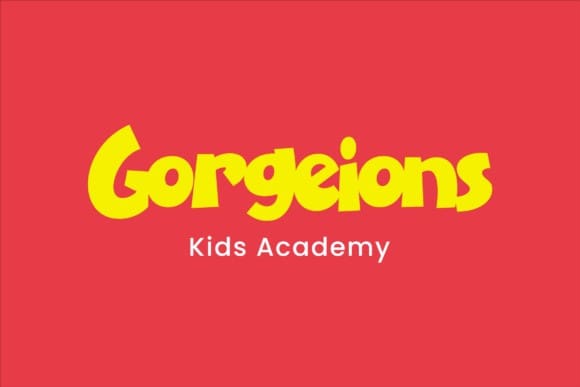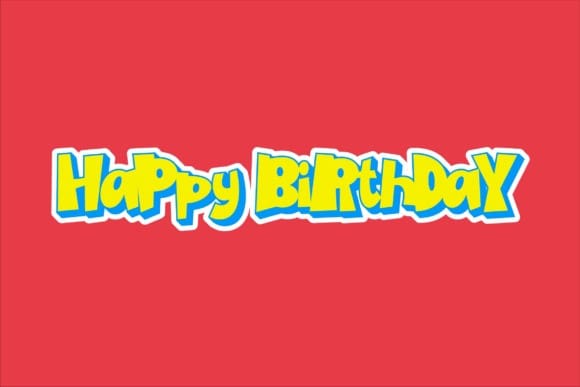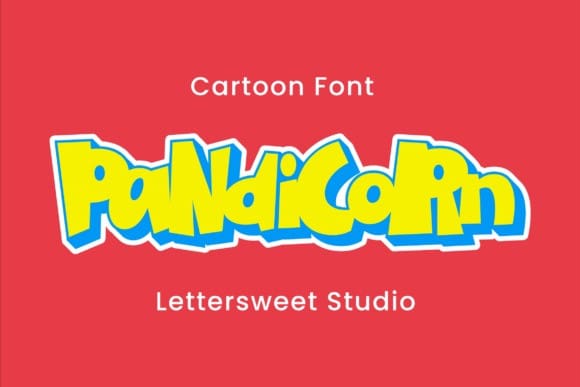
Pandicorn Display Font
Pandicorn Display Font is a cheerful and imaginative cartoon font designed specifically for children’s projects. Its playful curves and bold colors capture the fun and wonder of childhood. Perfect for creating eye-catching logos, posters, and illustrations for children’s products, video games, and more.